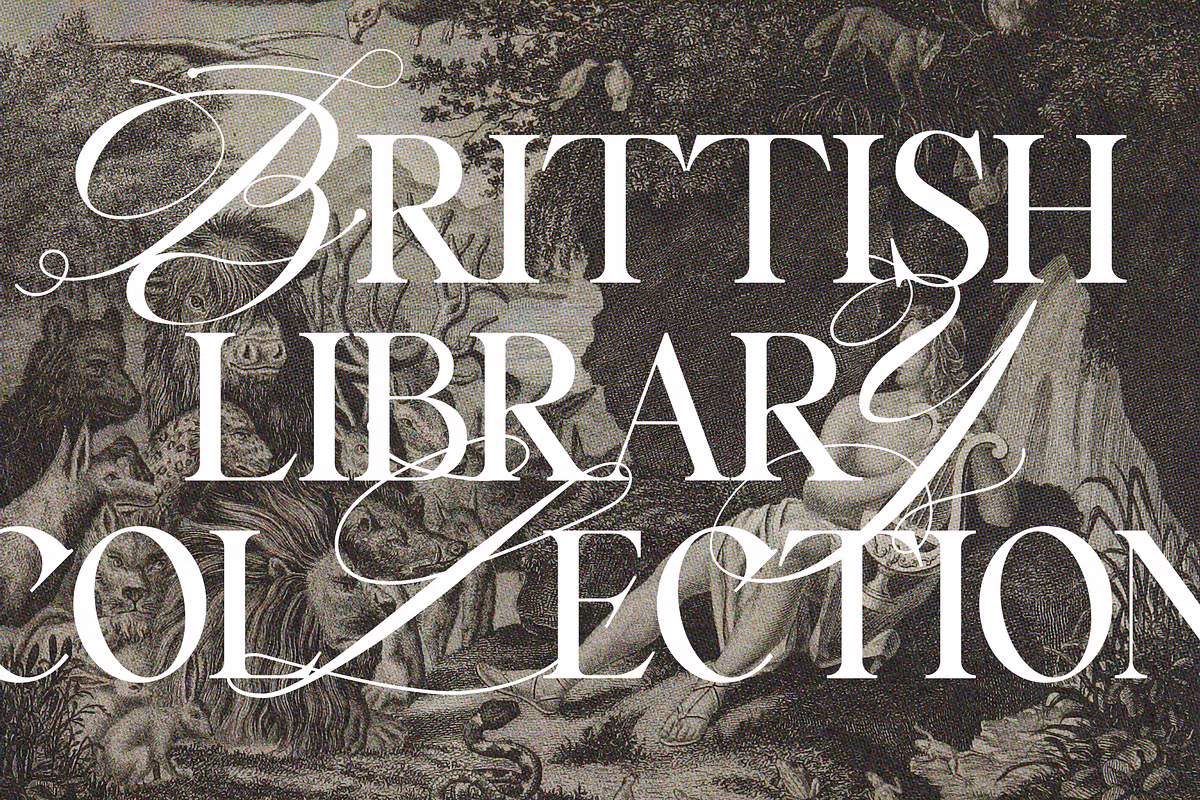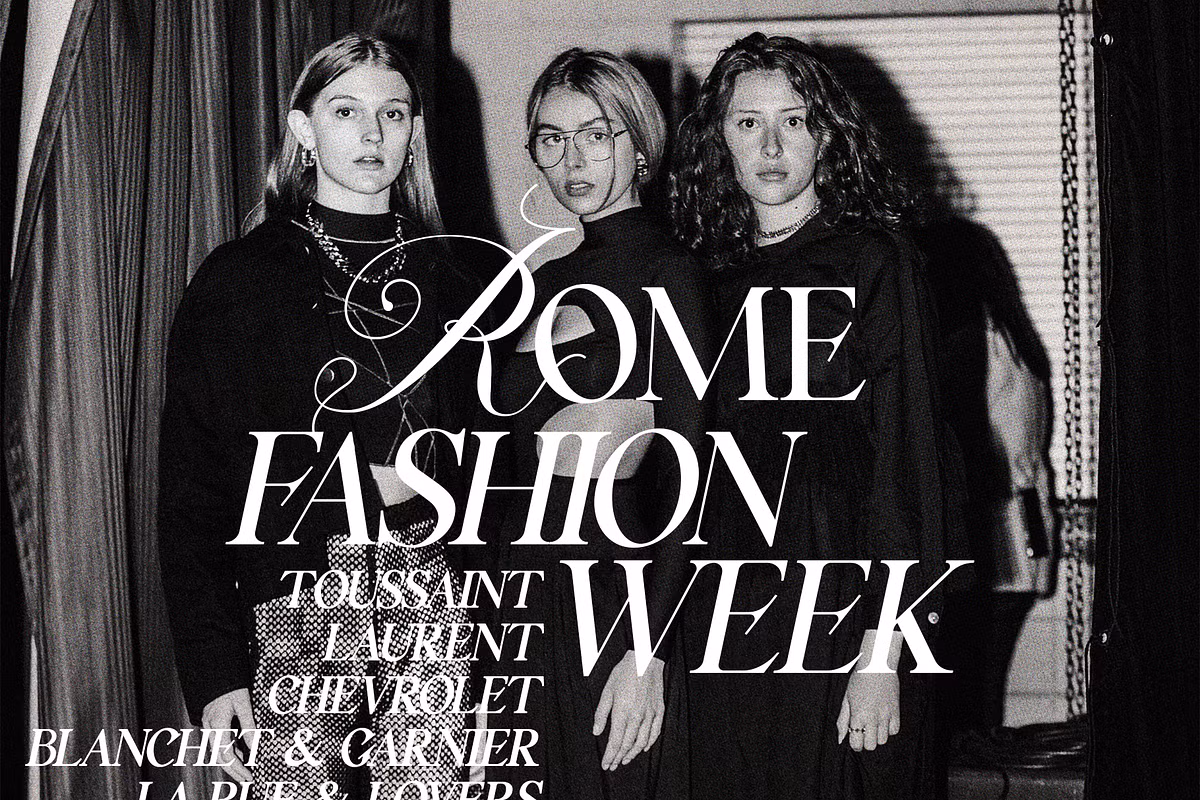
Silver Garden: Elegant Nostalgic Font Duo for Creative Projects
Meet Silver Garden, a beautiful new font that’s perfect for adding a touch of nostalgia and elegance to your projects. It’s not just a set of letters, but a way to express your personal style and creativity. With four different styles to choose from – regular, italic, bold, and bold italic – Silver Garden is a versatile font that can help you create something truly special. Whether you’re working on a design project or just want to add a bit of flair to your writing, this font is sure to make a statement. Its unique look is both chic and sophisticated, making it a great choice for anyone looking to add a little extra something to their work. So why not give Silver Garden a try and see what it can do for you? It’s a great way to add some personality and flair to your projects, and its elegant design is sure to impress.
Silver Garden is really special because of its beautiful serif design. The regular and italic versions are cool, chic, and elegant, which can make any project look great. But when you use the bold and bold italic versions, the font becomes even more amazing, with extra curves that give it a nostalgic and vintage feel. This means Silver Garden is not just a font, it’s a way to make a statement and it can fit with lots of different styles. It’s like a chameleon, changing to suit whatever look you want to achieve, and that’s what makes it so versatile and useful. Whether you’re working on a project that needs a modern touch or a vintage vibe, Silver Garden can help you get the look you want. Its unique design makes it stand out, and its ability to adapt to different styles makes it a great choice for anyone looking to add some elegance and sophistication to their work.
The classic look of serif fonts gives a feeling of being reliable and traditional, which makes them a great choice for designs that need to look classy. If you’re working on a modern branding project or making an invitation that looks like it’s from the past, Silver Garden is a font that can fit in perfectly with what you have in mind. It brings together modern design ideas and old-style typography in a way that’s balanced and nice to look at.
Character Sets and Features
The Silver Garden font is not just nice to look at, it’s also really useful. One of the cool things about it is that it has lots of special characters called ligatures. These ligatures are like two or more letters that are combined into one symbol, which makes your text look more elegant and easier to read. And the best part is, each version of the Silver Garden font has over 25 of these lowercase ligatures, so you can add a touch of sophistication to whatever you’re writing. This can really make a big difference in how your text looks and feels, and it’s a great way to add some extra flair to your writing. Whether you’re working on a big project or just want to make your everyday writing look nicer, the Silver Garden font is a great choice.
Silver Garden offers more than just ligatures – it also includes a complete set of uppercase script alternates. This gives you alternative designs for each uppercase letter, allowing you to create one-of-a-kind typographic compositions. Plus, the font supports a wide range of languages, so you can reach people all around the world with your designs. And with punctuation and numerals included, Silver Garden has everything you need to create amazing typography. Whether you’re working on a project that needs a global touch or just want to add some extra flair to your text, Silver Garden is a great choice. It’s a complete solution that can help you create beautiful, unique designs that stand out from the crowd.
Silver Garden is a really versatile font that can be used in lots of different projects. So, what are some good ways to use it?
- Branding: Create a memorable brand identity with Silver Garden’s elegant and nostalgic vibe. It’s perfect for luxury brands, fashion labels, or artisanal products.
- Invitations: Whether it’s for weddings, parties, or formal events, Silver Garden can add a touch of sophistication to your invitations, making them stand out.
- You can use Silver Garden in magazines or books to create a layout that’s really stylish and chic. This font is great because it’s easy to read and has a lot of character, making it perfect for both body text and headings.
- Make your social media posts stand out with Silver Garden. This font has special features like ligatures and alternates that will grab people’s attention and make them want to interact with your content on platforms like Instagram.
To take your designs to the next level, think about combining Silver Garden with some other fonts that go well with it. Here are a few ideas to get you started.
- When you put Silver Garden with a simple font that doesn’t have the extra lines at the ends, like Montserrat or Open Sans, it makes the whole thing look really modern and fancy. This is a great way to make Silver Garden stand out and look its best.
- Display Fonts: For headlines or titles, consider using a bold display font that contrasts with the delicate nature of Silver Garden. This can create a dynamic visual hierarchy.
- Handwritten Fonts: To capture a more personal touch, combining Silver Garden with a handwritten font can evoke emotions and create warmth, making your designs feel more inviting.
So, Silver Garden is not just a font, it’s a way to add some elegance and nostalgia to your designs. It’s got a lot of different styles and a big set of characters, which makes it really useful for designers. Whether you’re making a brand look nice, designing invitations, or creating graphics for social media, Silver Garden is a great choice because it mixes old and new styles really well. You should totally check it out and see how it can make your designs look amazing! With its classic feel and modern touches, Silver Garden is perfect for anyone who wants to add a little something extra to their work. It’s a great tool for designers who want to make their projects stand out, and it’s easy to use, too. So why not give it a try and see what you can create with Silver Garden? It’s a beautiful font duo that can help you make some really stunning designs.